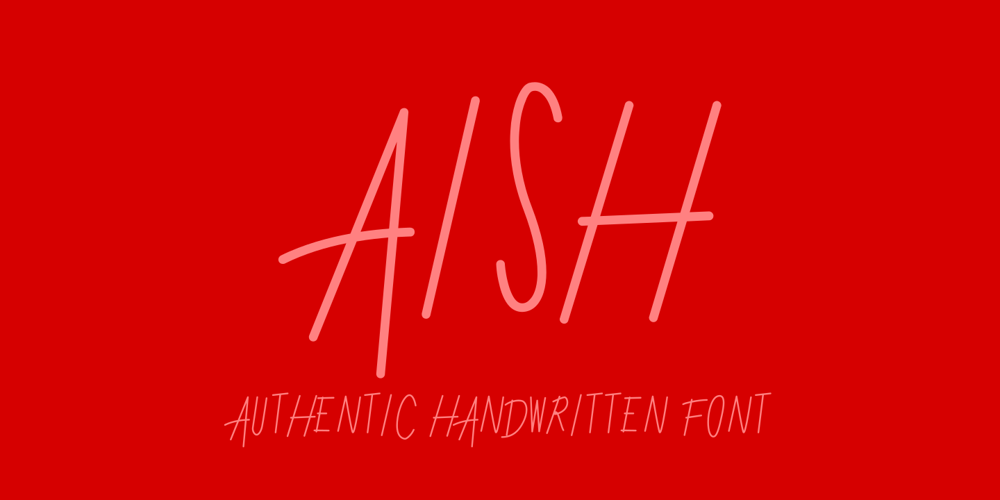
Aish Font Family was designed by Arief Rochman and published by 4RM Font. Aish contains 2 styles and family package options. Aish font is an authentic handwritten font. This font combines simple style with authenticity of the font in its creation. suitable for use in simple themed graphic designs.